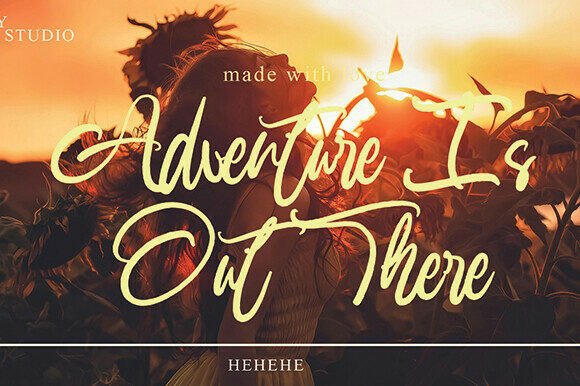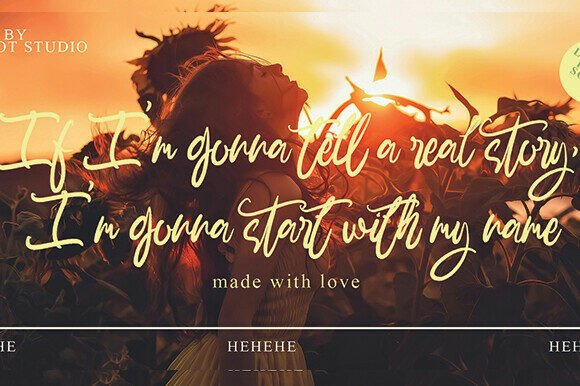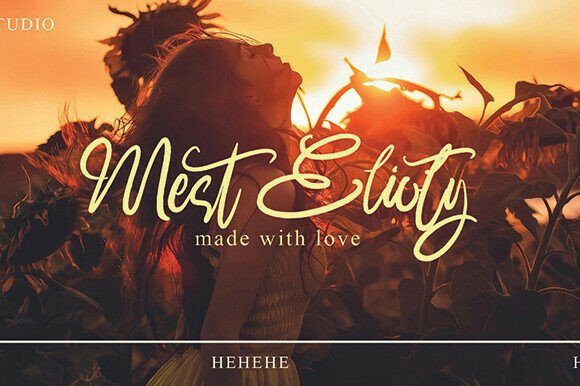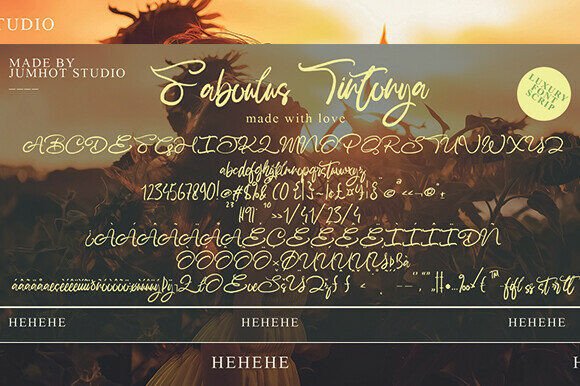
Introducing Faboulus Tintonya: Elevate Your Designs with Elegance and Sophistication
In the world of typography, a font can make or break a design. For designers and crafters seeking to infuse their projects with a touch of elegance and modern charm, look no further than the Faboulus Tintonya font. This stylish script font is meticulously crafted to bring a sense of refinement and sophistication to a wide range of design applications, from logos and invitations to packaging and social media graphics.
The Essence of Faboulus Tintonya
Faboulus Tintonya is more than just a font; it’s an expression of artistry and precision. Featuring graceful strokes, fluid curves, and carefully crafted letterforms, this font captures the essence of hand-drawn calligraphy with a modern twist. Each character is designed to flow seamlessly into the next, creating a natural and harmonious look that is both visually appealing and highly legible.
One of the standout qualities of Faboulus Tintonya is its versatility. Whether you’re working on a logo that needs to convey luxury and professionalism, an invitation that requires a touch of elegance, or packaging that demands attention to detail, this font is up to the task. Its adaptability also extends to digital platforms, making it an excellent choice for social media graphics, website headers, and more.
Crafting with Precision and Passion
For crafters and designers, the right font can be a game-changer. Faboulus Tintonya is designed with the creator in mind, offering a tool that combines aesthetic appeal with practicality. The font’s polished details and smooth lines make it perfect for projects that require a high level of detail and precision, such as handmade cards, bespoke stationery, and custom jewelry designs.
Why Choose Faboulus Tintonya?
- Elegant and Contemporary: Offers a perfect blend of traditional calligraphy and modern design.
- Highly Versatile: Suitable for a wide range of projects, from print to digital.
- Attention to Detail: Carefully crafted letterforms ensure a polished and refined look.
- Easy to Read: Despite its elegant nature, the font maintains high legibility.
- Unique and Memorable: Helps your designs stand out with a distinctive look.
Implementation and Usage
To get the most out of Faboulus Tintonya, consider the following tips:
- Pair with Complementary Fonts: For maximum impact, pair Faboulus Tintonya with sans-serif fonts to create contrast and visual interest.
- Play with Colors: Experiment with a range of colors, from classic black and white to vibrant hues, to see how they enhance the font’s appearance.
- Adjust Line Spacing: For a more elegant look, increase line spacing to give your text room to breathe.
- Use it Sparingly: While Faboulus Tintonya is beautiful, it can also be impactful when used sparingly. Consider using it for headings or key messages.
Faboulus Tintonya is a stylish script font that brings a unique blend of elegance and contemporary charm to the world of design. With its graceful strokes, fluid curves, and meticulously crafted letterforms, it offers designers and crafters a versatile tool that can elevate a wide range of projects. Whether you’re looking to create a lasting impression with a logo, convey sophistication with an invitation, or add a touch of refinement to packaging, Faboulus Tintonya is an excellent choice. Embrace the beauty of hand-drawn calligraphy with a modern twist and discover the difference this exceptional font can make in your designs.